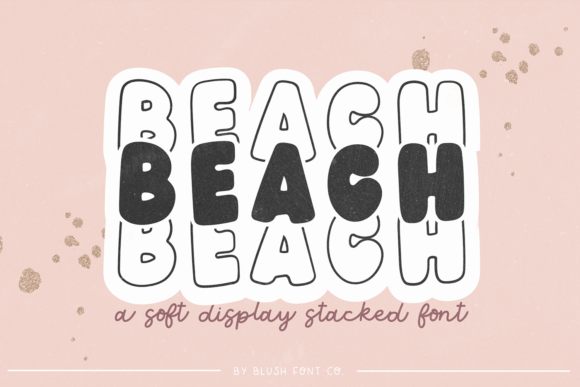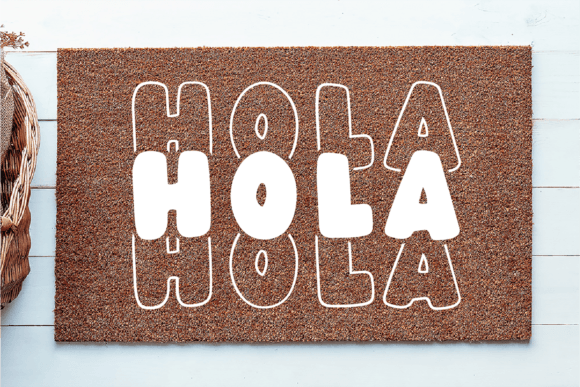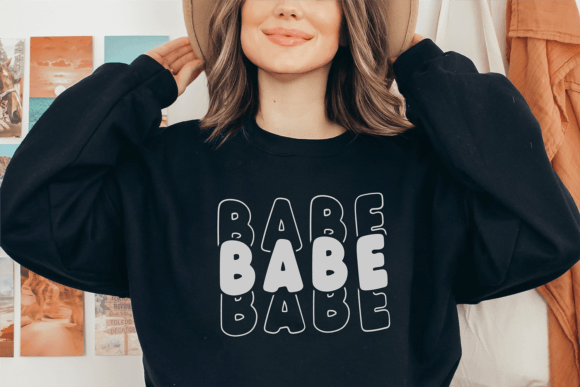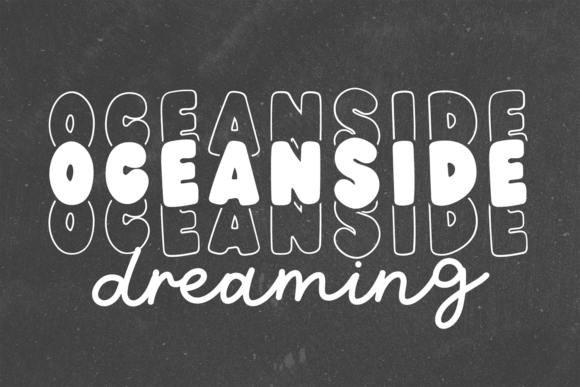
Beach Stacked Retro Soft Font
About the Beach Stacked Retro Soft Font
Presenting Beach Stacked Retro Soft Font, a unique and stylish typeface that will make your work stand out. Beach Stacked is a stylish soft display font with a stacked effect. This font is a trendy display font that is perfect for social media or crafty projects. Use it for branding, crafts for decor, invitations, and more! This font includes numbers and punctuation.
Beach Stacked Retro Soft Font Usage Examples
Beach Stacked Retro Soft Font Example